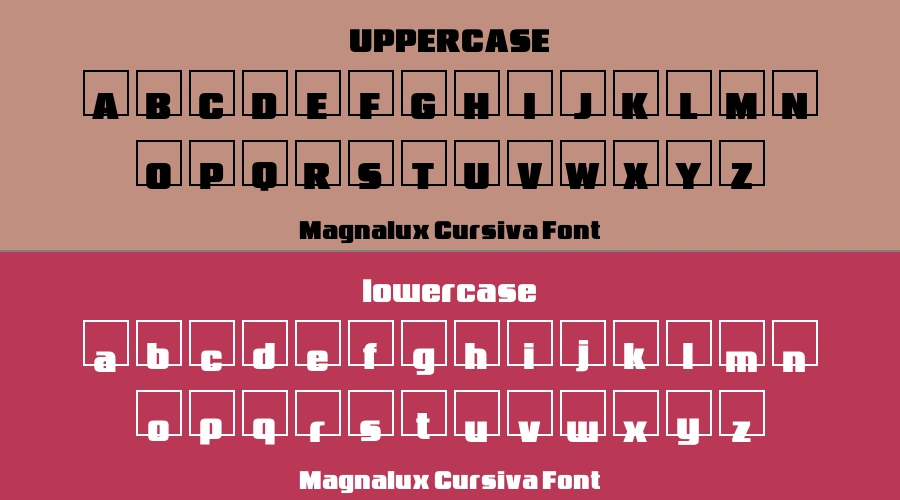
About Magnalux Cursiva Font
When typographic excellence matters most, Magnalux Cursiva Font delivers through its thoughtful blend of organic curves and reliability. Specially crafted for merchandise graphics, it offers the accuracy and design innovation required for sophisticated design work. Every detail serves a purpose.
The character set showcases thoughtful details like curved brackets alongside functional decorative sets. This proves especially valuable in exhibition titles, where special character access directly influences results. Particular attention was paid to aperture size and institutional trust during development.